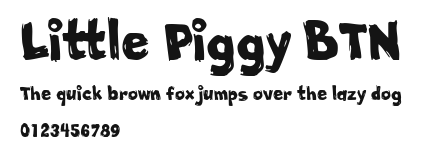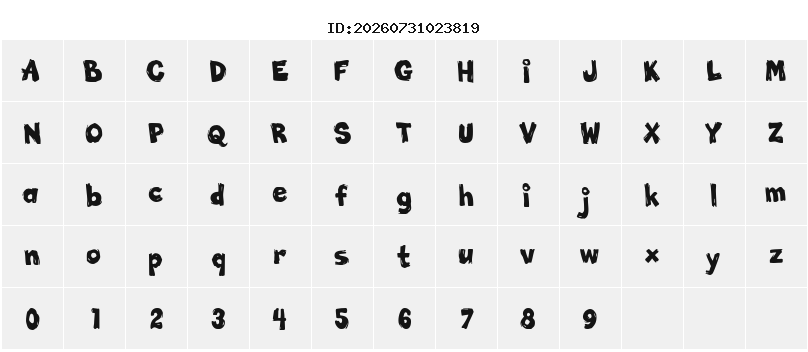
Little Piggy BTN Preview
• Font Name: Little Piggy BTN
About Little Piggy BTN.ttf
Little Piggy BTN.ttf is a modern, elegant sans-serif font designed for ultimate readability and visual harmony. Perfect for branding, headlines, web design, and print materials.